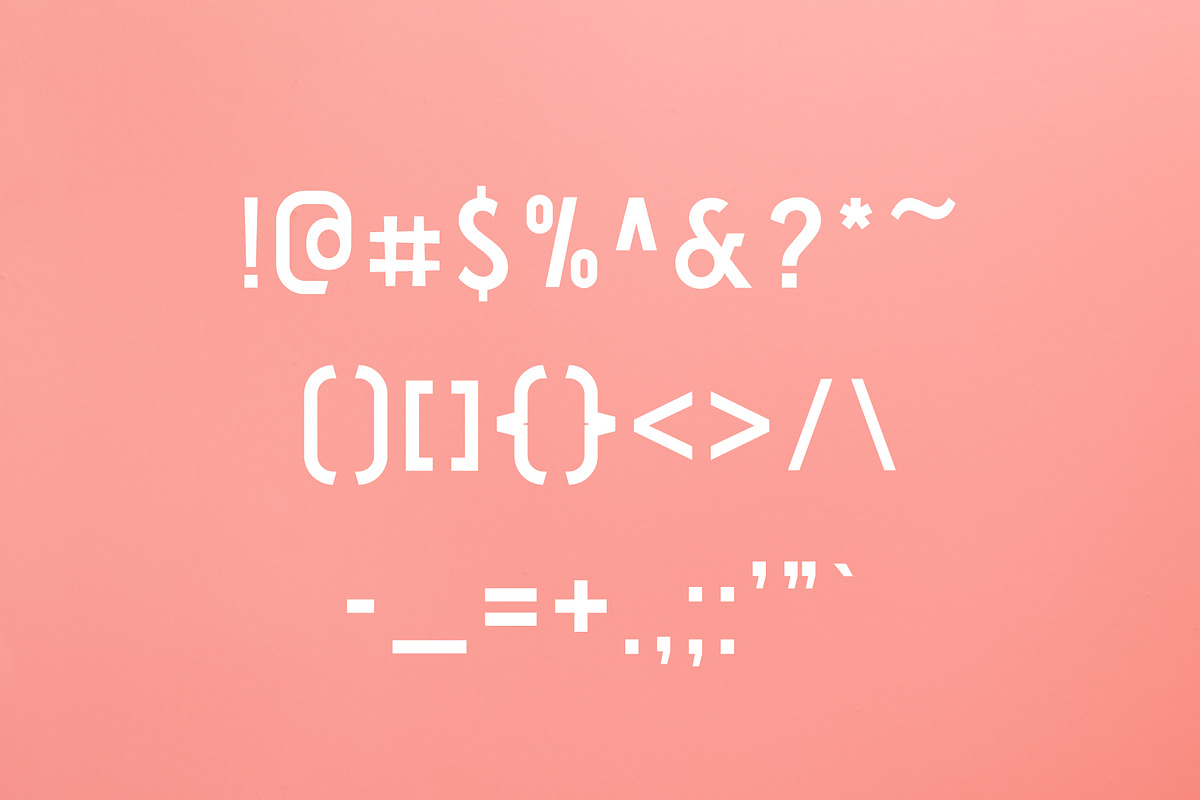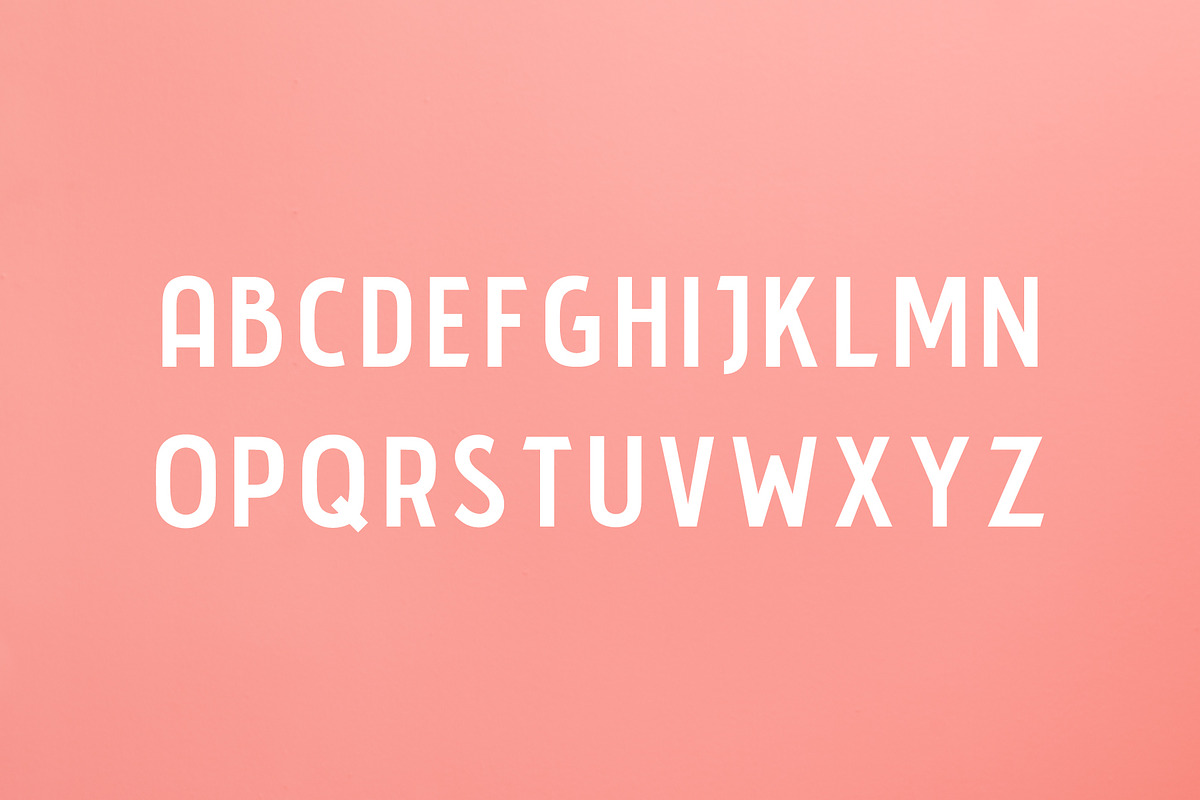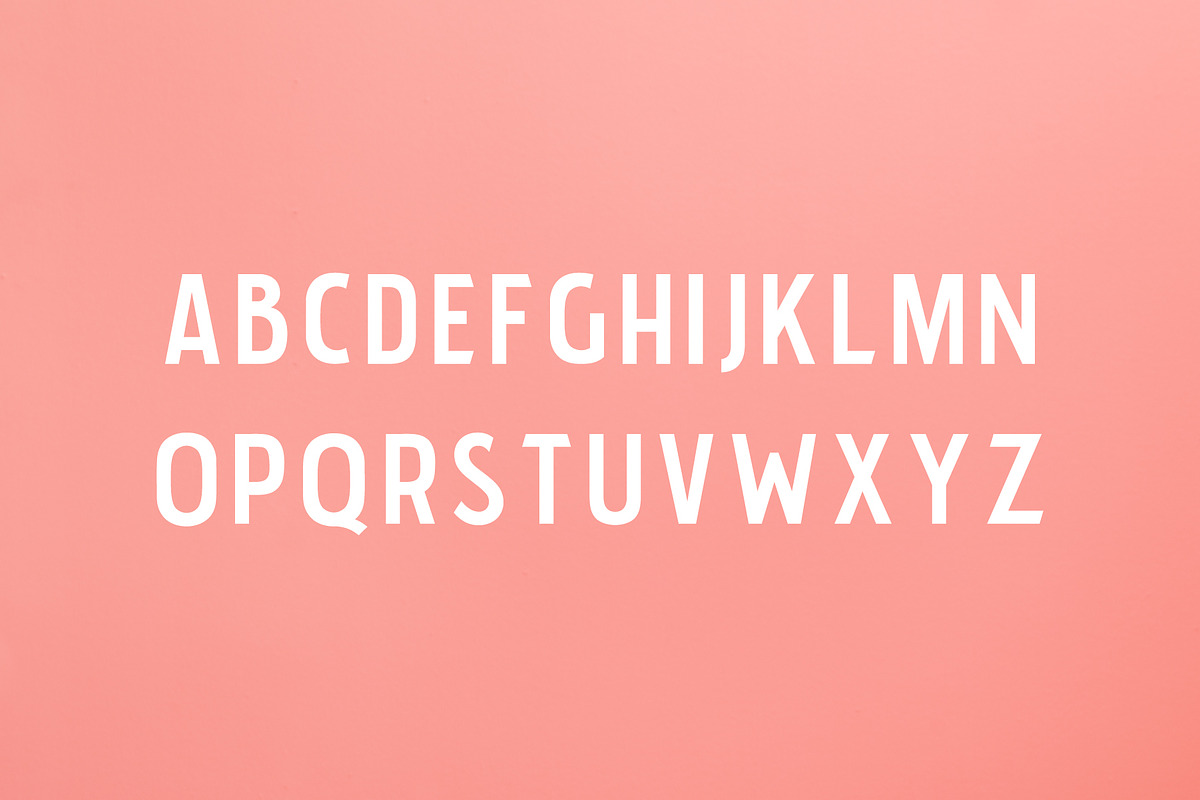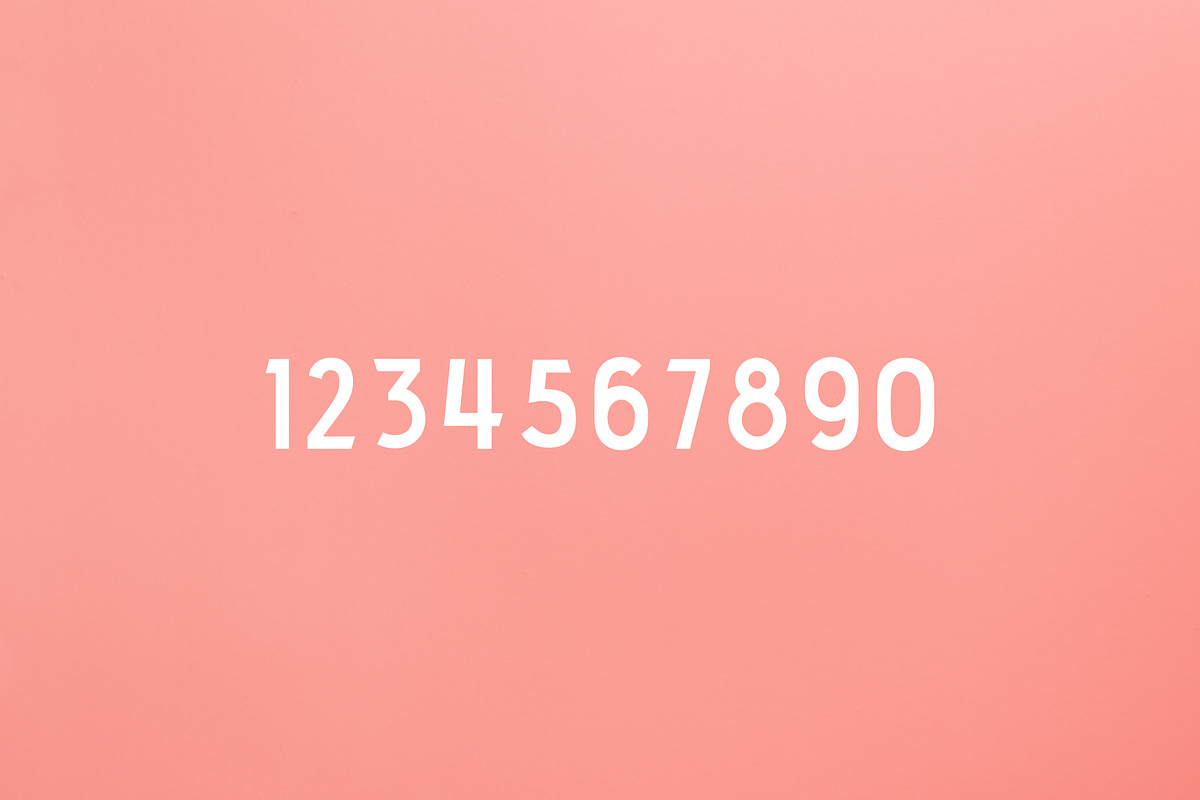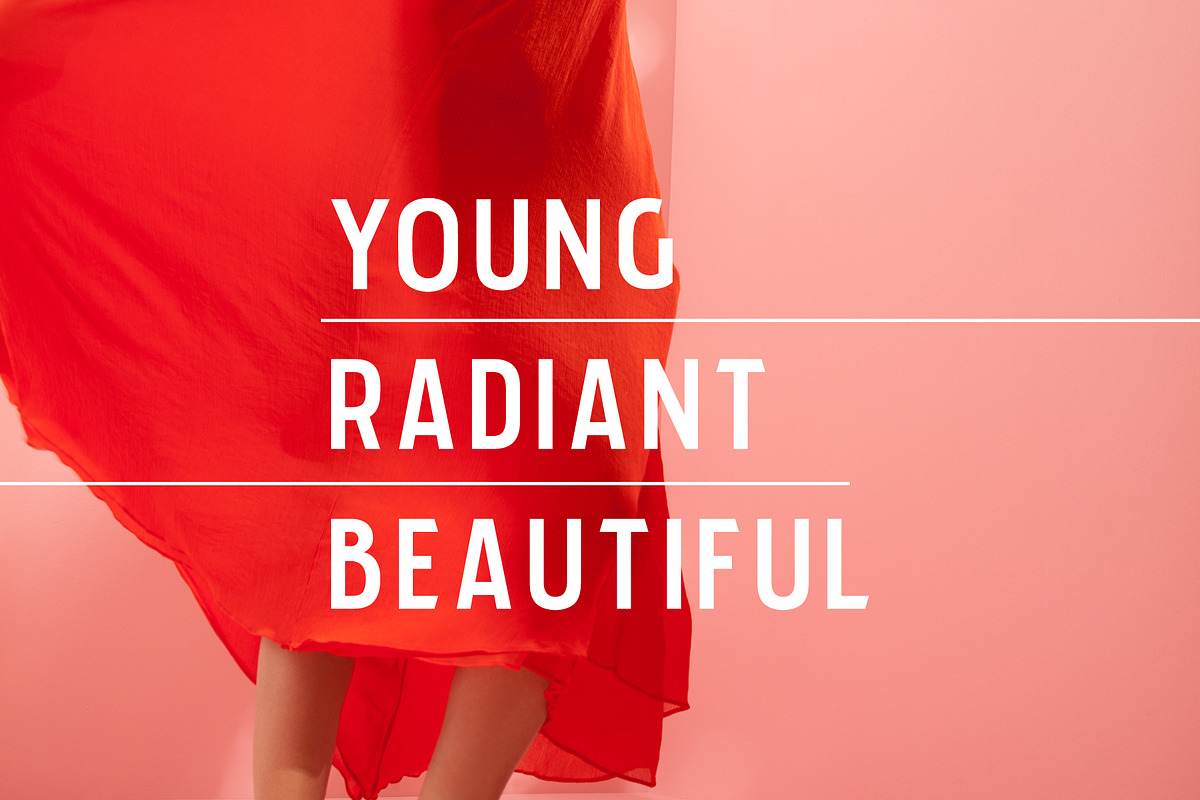
VALENTINA - Androgynous Display Font
An elegant and androgynous display font. Perfect for both masculine and feminine design applications. These characters have "character". Pairs well with bold with a wide sans serif.
- Uppercase variations
- Special Characters